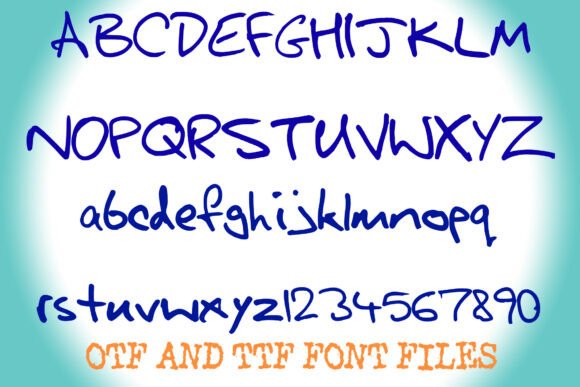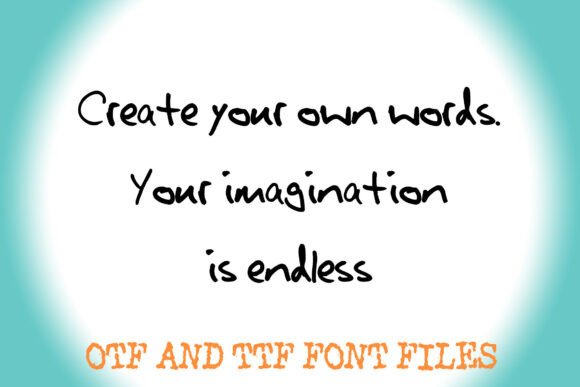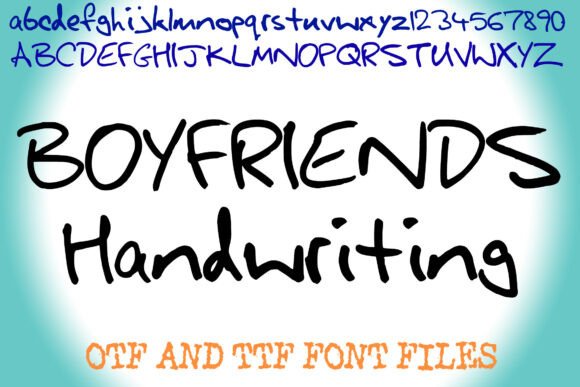
The Charm of Imperfection: Why Designers Adore the Boyfriends Handwriting Font
I’ll never forget the time I was working on a branding project for a boutique client, and I was struggling to find the perfect font to capture the essence of her handmade products. I had tried countless digital fonts, but none of them seemed to convey the warmth and personality I was looking for. That’s when I stumbled upon the Boyfriends Handwriting Font, and it was love at first sight! 💕
This font is derived from real handwriting, meticulously captured from actual pen-on-paper strokes to ensure that every curve and connection feels sincere and human. It’s like having a friend’s handwritten note, but with the versatility to use it in various design projects.
- ✨ Authentic, non-digital look: The Boyfriends Handwriting Font is created from actual handwriting, giving it a 100% genuine feel that standard typefaces can’t match.
- ✅ Perfectly imperfect: The irregular strokes and natural rhythm replicate the charm of a quick note or journal entry, making it perfect for designs that require a personal touch.
- 💡 Versatile casing: The font includes both lowercase and uppercase characters, allowing for a realistic writing flow that’s ideal for body text or headings.
⚠️ While the font is incredibly versatile, I did notice that some characters may require manual kerning to achieve optimal spacing. However, this is a minor quirk compared to the font’s many benefits.
🤔 Additionally, the font’s handwriting style may not be suitable for extremely formal or corporate designs. However, for most creative projects, it’s an excellent choice.
The Designer Inspiration Behind the Font
The Boyfriends Handwriting Font was created by a designer who wanted to capture the essence of real handwriting in a digital font. The story goes that the designer was inspired by the handwritten notes and letters from their partner, which had a unique, imperfect charm that was impossible to replicate digitally. And so, the Boyfriends Handwriting Font was born – a font that’s all about embracing the beauty of imperfection.
Q: What makes the Boyfriends Handwriting Font so special?
A: The font’s unique, handwriting-style characters and irregular strokes give it a 100% authentic, non-digital look that’s hard to find in standard typefaces.
Q: Is the Boyfriends Handwriting Font easy to read?
A: Despite its handwritten style, the font is surprisingly legible, making it perfect for body text or headings.